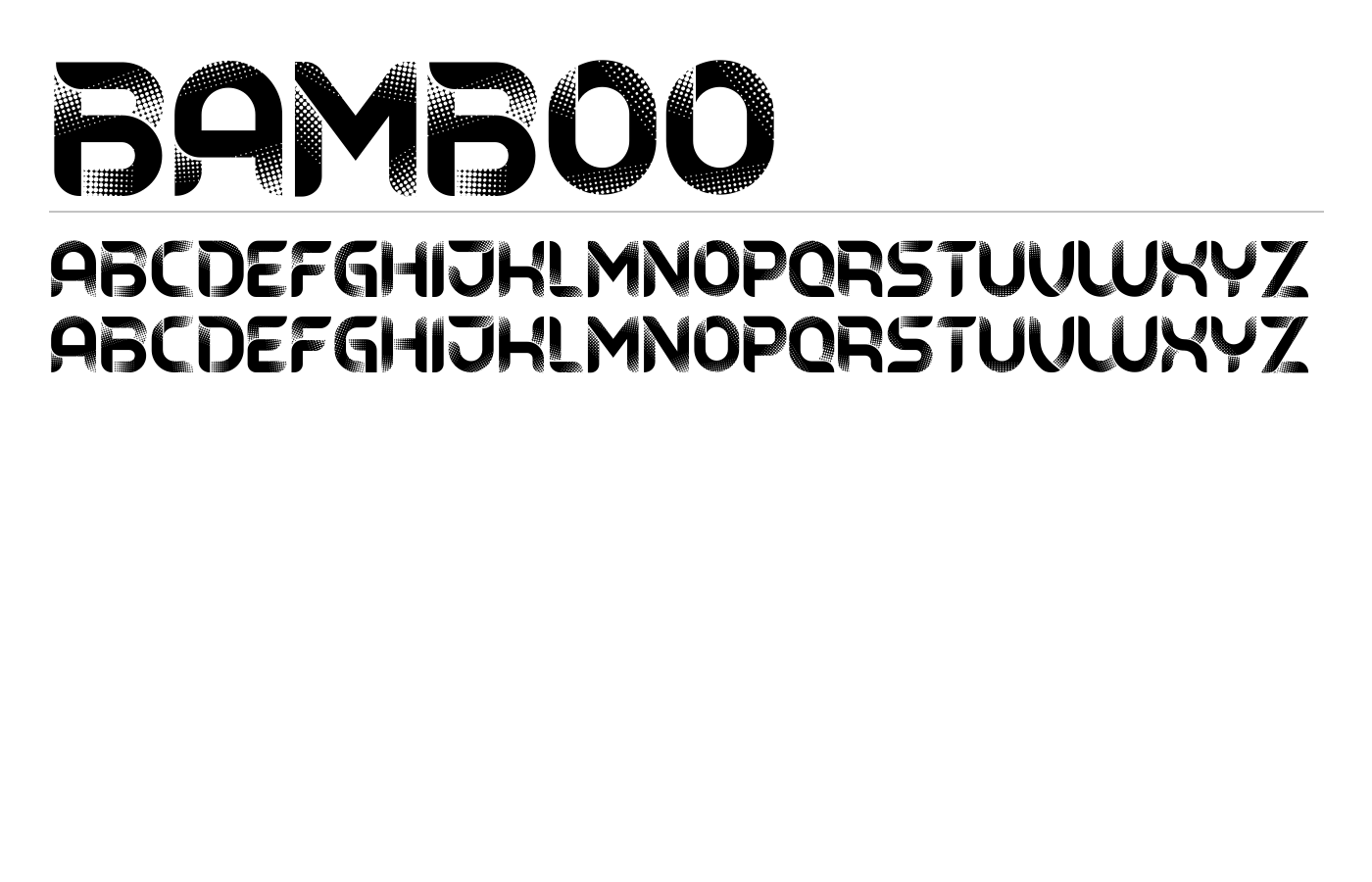
Bamboo Font is a bold, modern sans serif with a unique halftone gradient effect that gives it a dynamic, textured appearance. Its wide, rounded letterforms and geometric shapes create a playful yet strong personality, making it perfect for eye-catching headlines, logos, and creative branding projects. This font works best in designs that aim to convey energy and contemporary style while maintaining readability.
Bamboo Font
About Bamboo Font
| Font family | Bamboo Font |